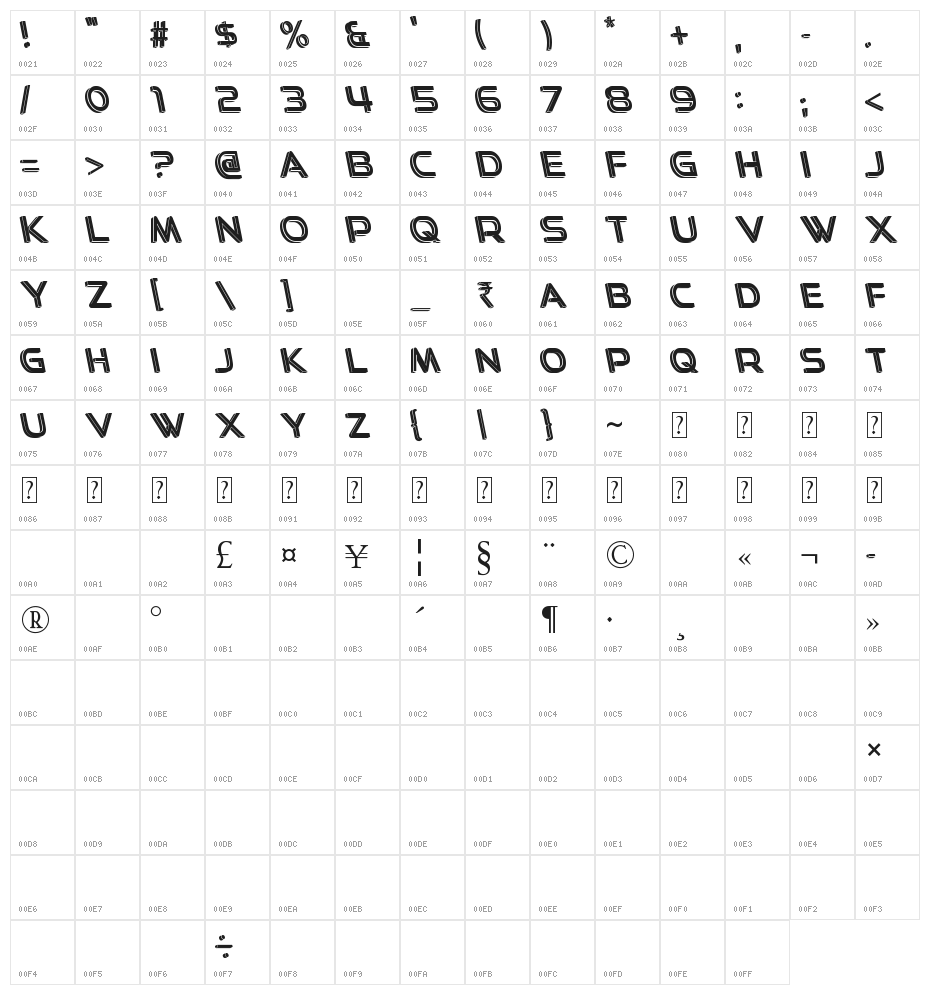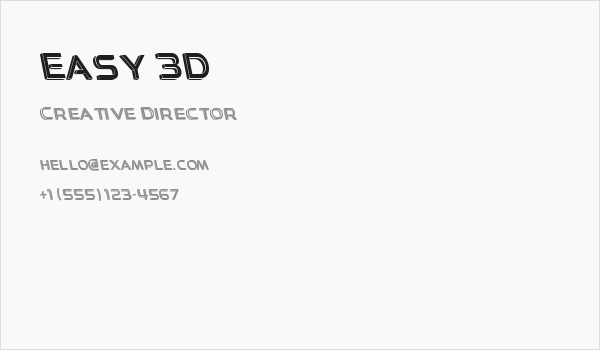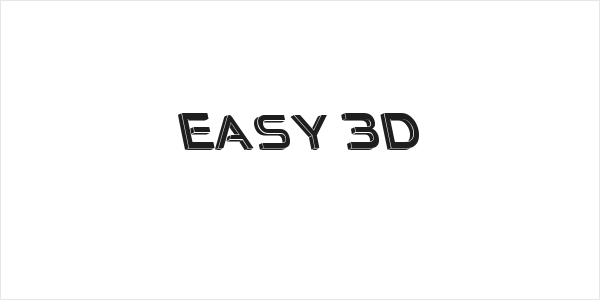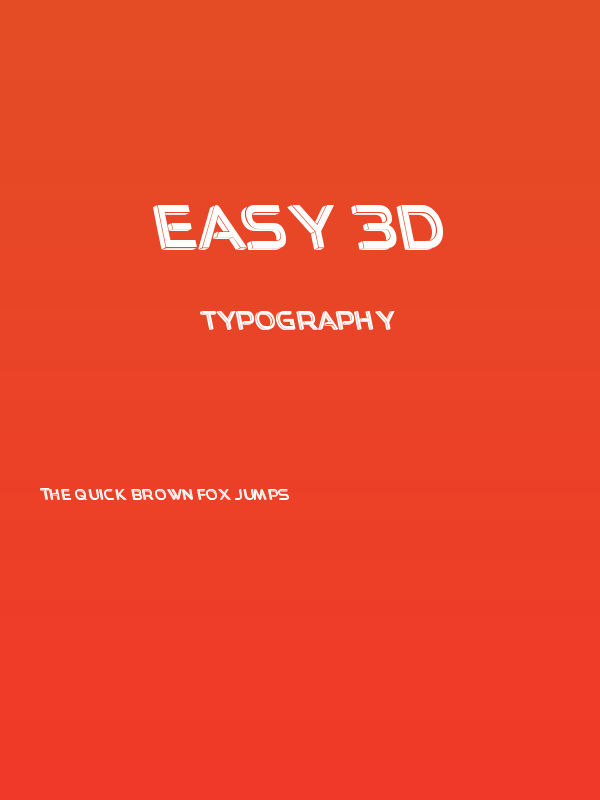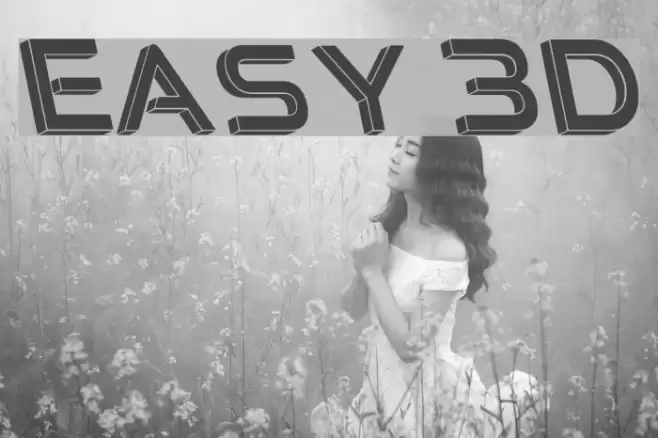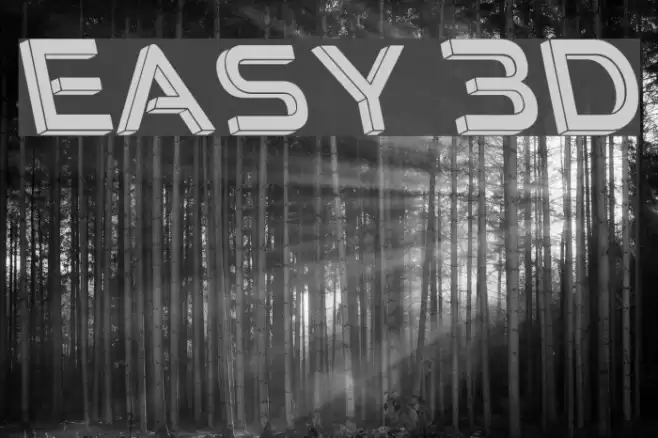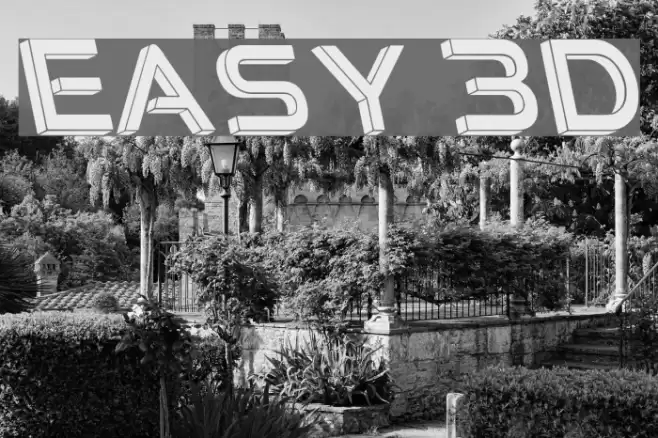
Easy 3D Font
Easy 3D Description
This font features a bold, three-dimensional style that gives each character a striking, shadowed appearance. The letters are uppercase and numerals are included, with a consistent geometric design that adds depth and a modern flair. The characters have a solid, block-like structure with sharp angles and clean lines, creating a sense of strength and stability. The 3D effect is achieved through a clever use of shading, which enhances the visual impact and makes the text stand out. This font is ideal for projects that require a bold statement, such as posters, headlines, or branding materials. The special characters maintain the same 3D effect, ensuring consistency across all elements.
| Proposed Projects | Ideal for posters, headlines, branding materials, and any project requiring a bold visual impact. |